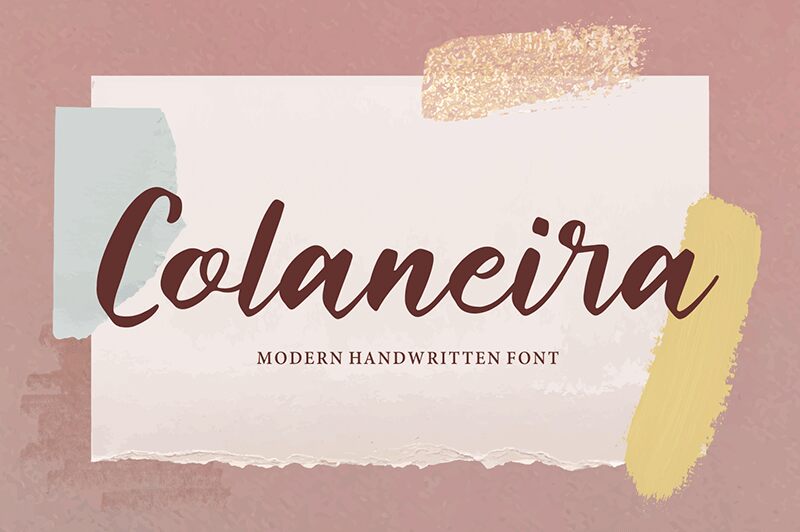
Colaneira is a charming handwritten marker font designed by Forberas Club. With its playful and organic feel, it's perfect for projects that require a personal touch. Use it for anything from greeting cards and invitations to branding and packaging. The semi-bold font style makes Colaneira ideal for headlines or titles, while the medium font width ensures optimal readability. Whether you're designing a logo, creating social media graphics, or crafting your own handmade goods, Colaneira adds a unique flair to any project. Download this versatile typeface today and watch your designs come to life!